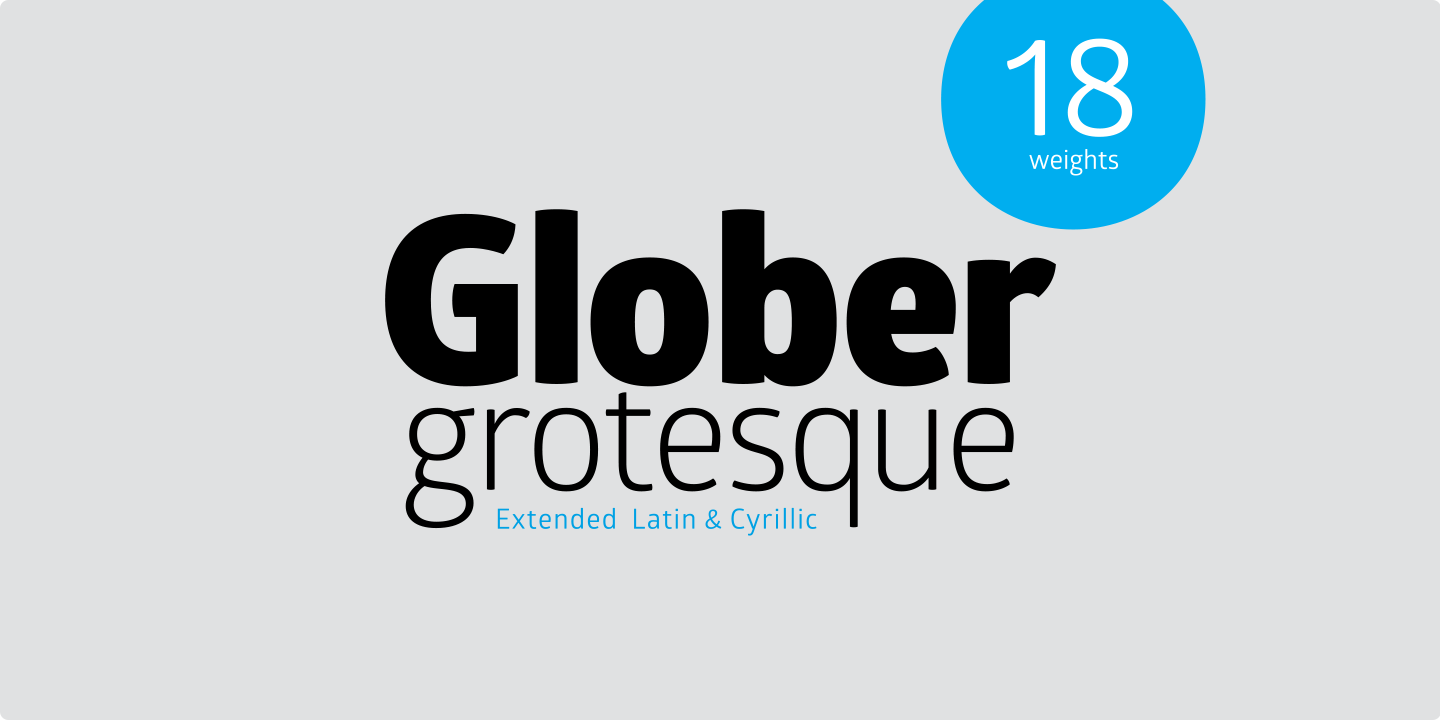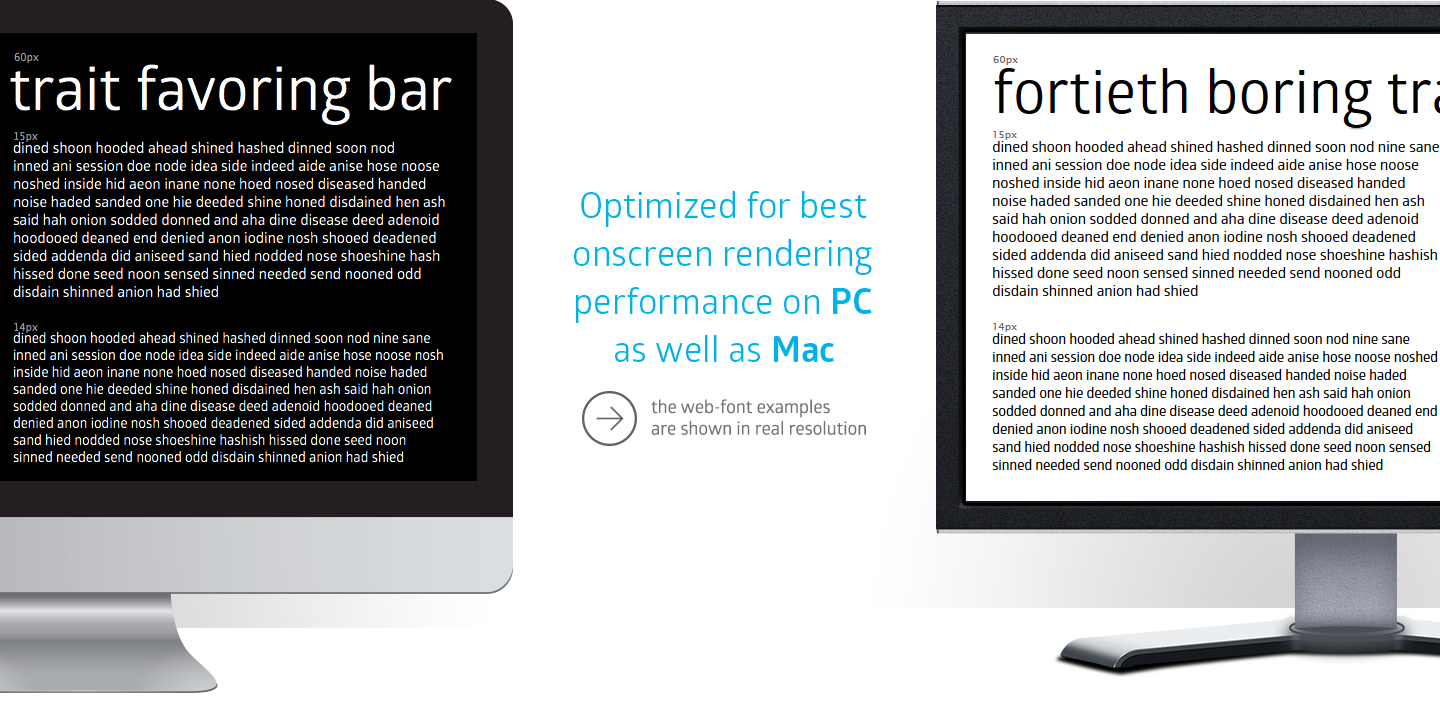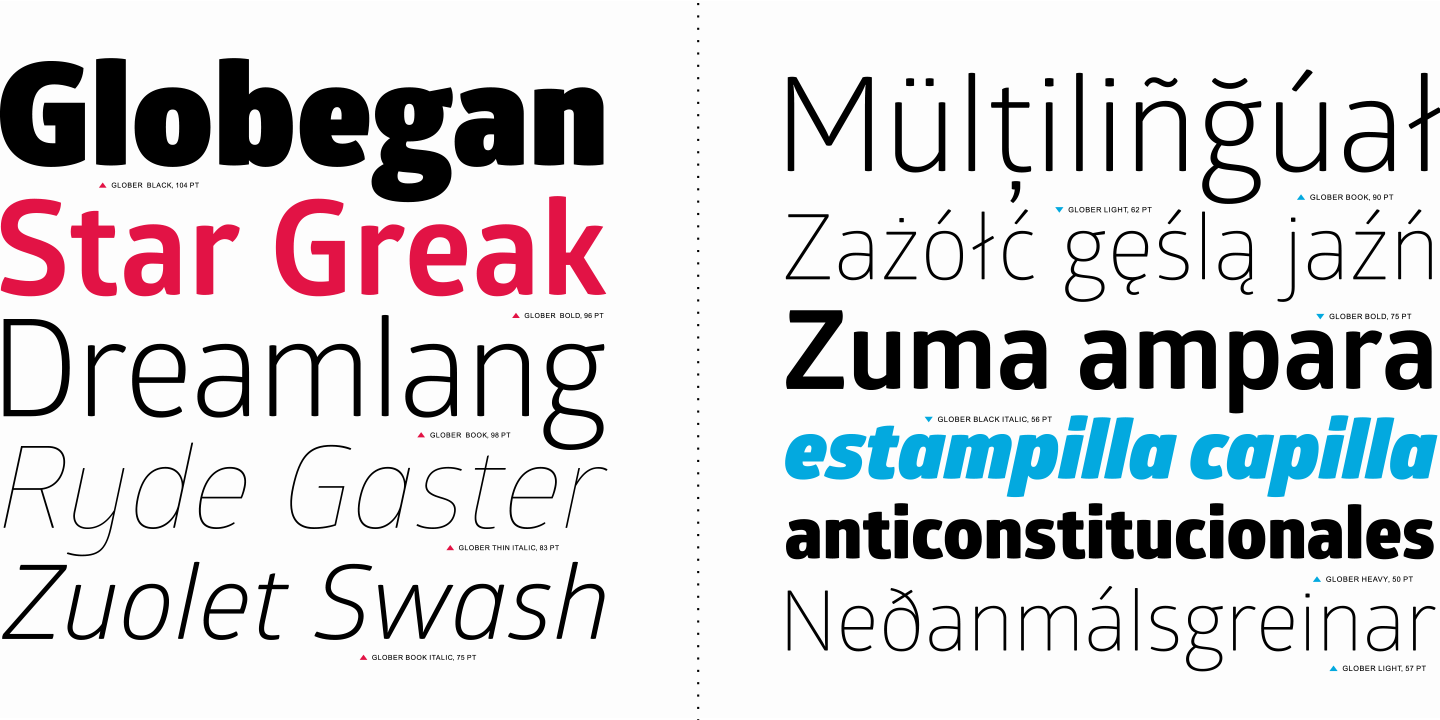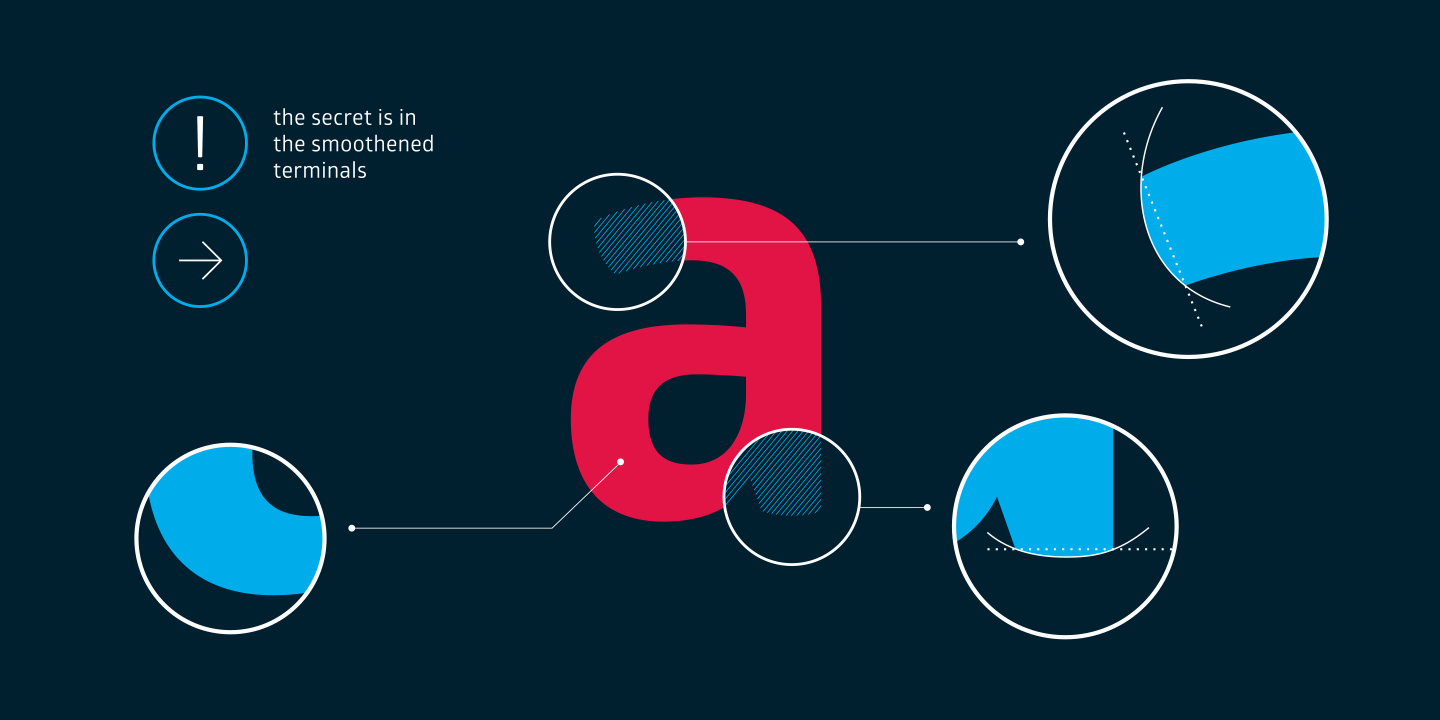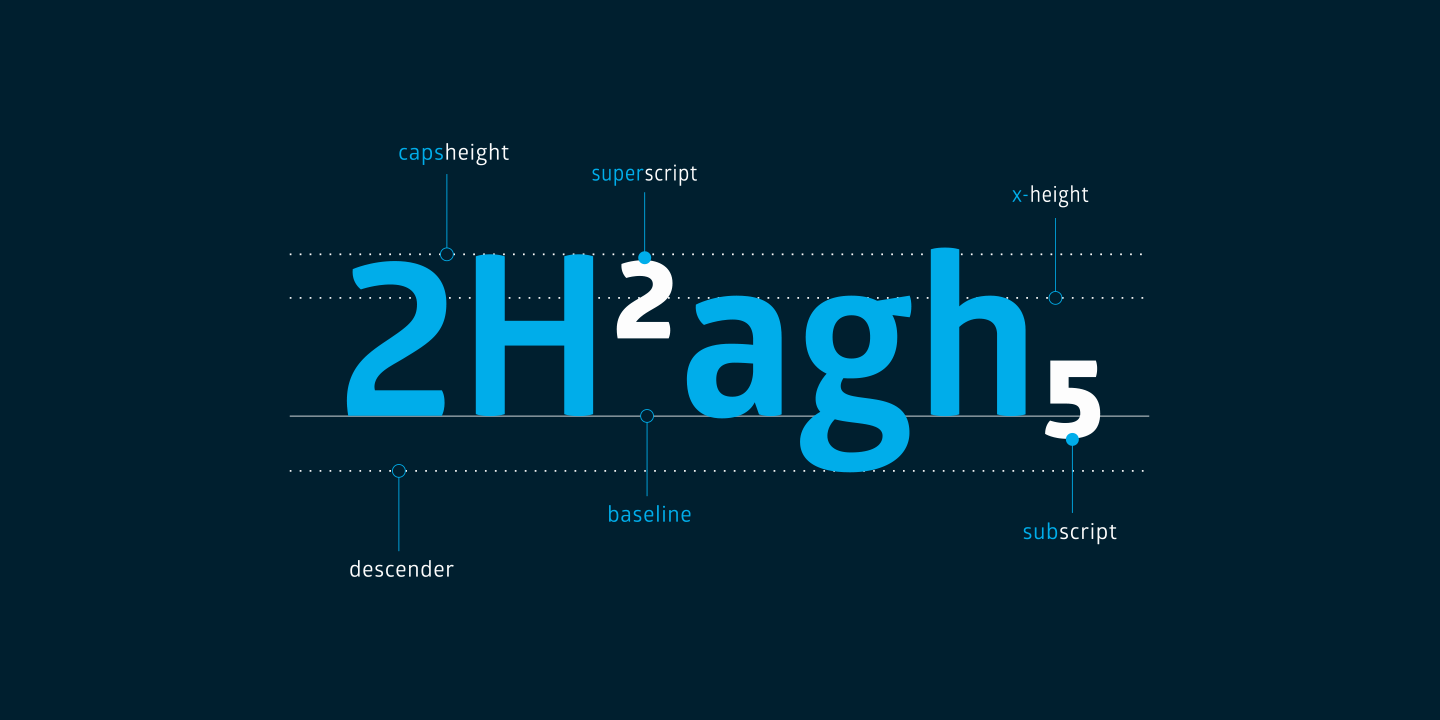
Glober Family (18 fonts)
Inspired by the classic grotesque typefaces - Glober has his own unique style in expressed perfect softened geometric forms.
The font family is most suitable for headlines of all sizes, as well as for text blocks that come in both maximum and minimum variations. Glober font styles are applicable for any type of graphic design in web, print, motion graphics etc and perfect for t-shirts and other items like posters, logos.